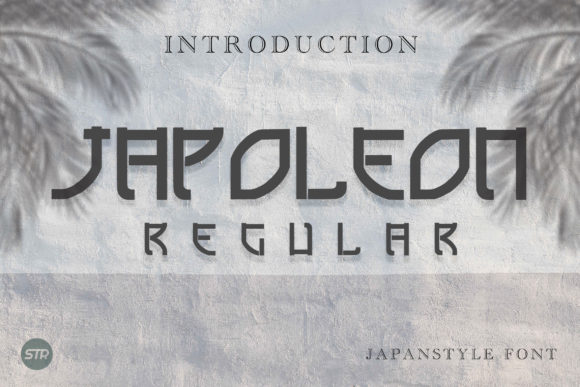
Behold, the Japoleon Font - a symphony of elegance and artistry, crafted to leave an indelible mark on your creative endeavors. Inspired by the rich visual tapestry of Japanese culture, Japoleon is not just a font; it's an artistic gateway to a world of harmonious aesthetics.
Immerse yourself in the beauty of Japanese calligraphy, where each stroke and curve is a testament to centuries-old traditions. Japoleon captures the essence of this artistic heritage, bringing the allure of the Orient to your designs. Whether you're creating posters that evoke the beauty of cherry blossoms or flyers that celebrate the vibrant spirit of Japanese festivals, Japoleon will be your trusted companion.
With its intricate details and graceful lines, Japoleon demands attention. Its presence will transform your food menus into culinary masterpieces, adding a touch of sophistication to every dish. Unleash your creativity and design posters that are as visually stunning as the Japanese art they emulate. Flyers and prints crafted with Japoleon will captivate audiences with their elegance, leaving a lasting impression on their minds.
But Japoleon's versatility extends beyond mere aesthetics. It's a font that empowers you to communicate with impact. Its striking appearance ensures that your message will be heard loud and clear. Create social media posts that demand attention, headlines that command respect, and logos that exude authority. Japoleon is the perfect choice for businesses looking to make a bold statement and leave a lasting impression.
And for those with a passion for the art of tattoo design, Japoleon opens up a world of possibilities. Its bold strokes and intricate details will transform your designs into works of art, capturing the essence of your clients' personalities and aspirations. From delicate cherry blossoms to fierce dragons, Japoleon will bring your creative vision to life, creating tattoos that tell stories and evoke emotions.
With Japoleon, the possibilities are endless. Explore its depths and discover a new realm of creativity, where art and functionality intertwine. Unleash the power of Japanese aesthetics and make your designs shine brighter than ever before.